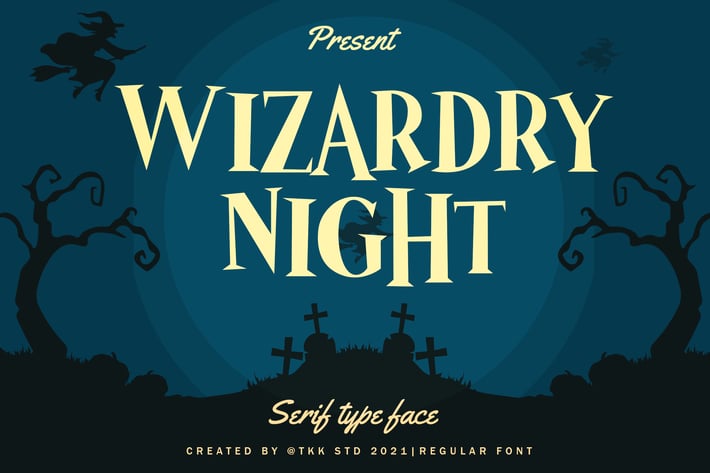
Horror Font - Wizardry Night
Wizardry Night - Mystery Movie Font
Wizardry Night Display Typeface delivers a long-tail typographic solution for fantasy branding and Halloween-themed visuals with a balance of whimsy and spook. Its expressive serifs, enchanting curves, and slightly exaggerated contrast create a flowing, storybook feel while maintaining sharp readability. The font's vibe is playful yet eerie, with a visual tone that suits both magical and horror contexts. Perfectly shaped for moonlit party posters, haunted house flyers, or even children’s mystery books, Wizardry Night blends fantasy style with a subtle vintage mood.
From bewitching invitations to event posters or seasonal marketing campaigns, Wizardry Night is your spellbinding go-to. Its unique curves and shadowy rhythm make it an ideal fit for projects that demand both fantasy and legibility—especially in branding aimed at children’s entertainment, themed packaging, or Halloween promotions. If your work needs a storybook tone with gothic drama, this font conjures that magic instantly.
Key Features
Whimsical Yet Legible:
- Soft, extended serifs with a fantasy flourish
- Balanced structure between decorative detail and clarity
- Ideal for both headline and medium-length text
Versatile Fantasy Appeal:
- Works across Halloween flyers, movie titles, kids’ books, and mystical branding
- Storybook feel with a cinematic edge
- Adds both playfulness and sophistication in one type style